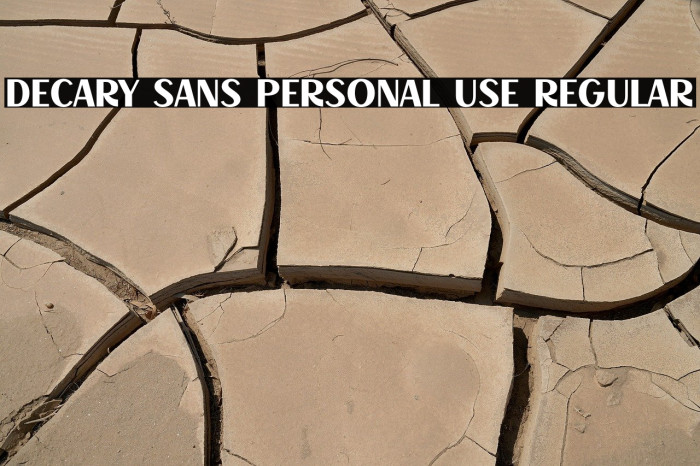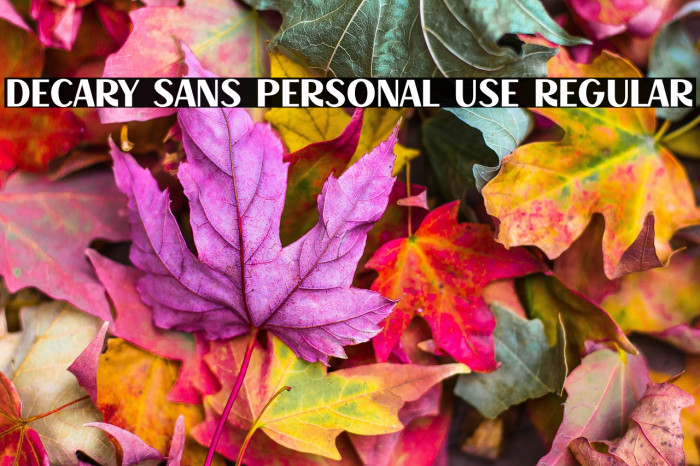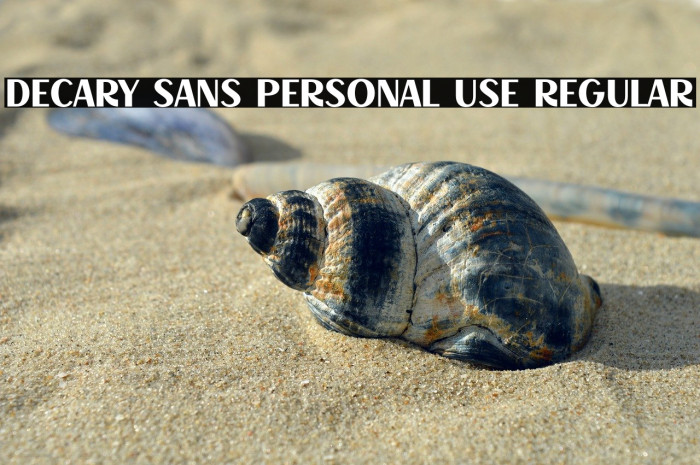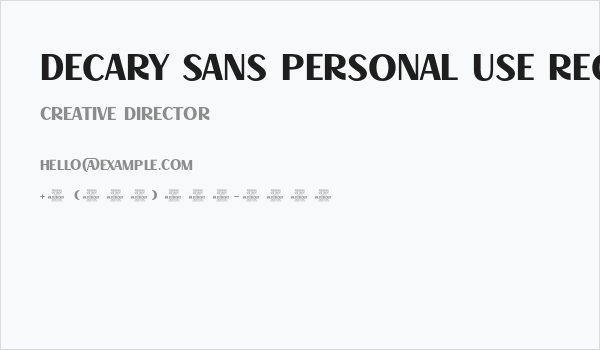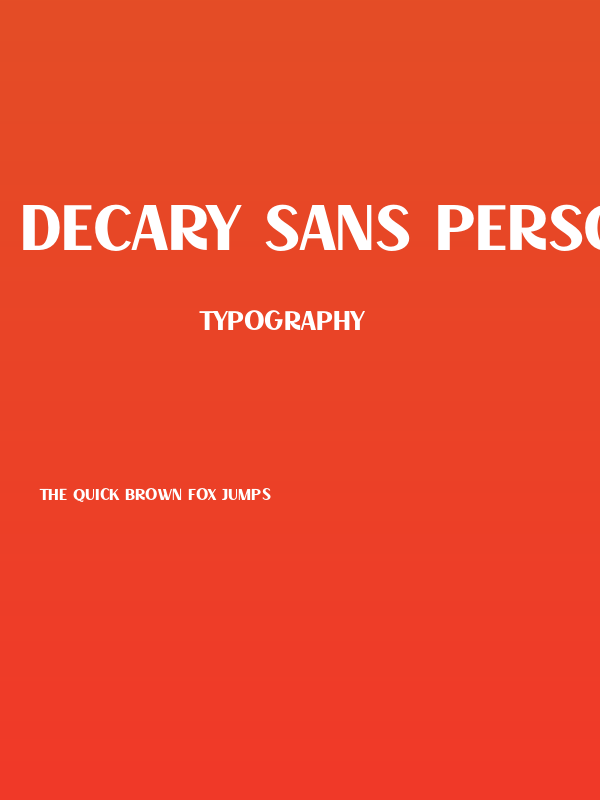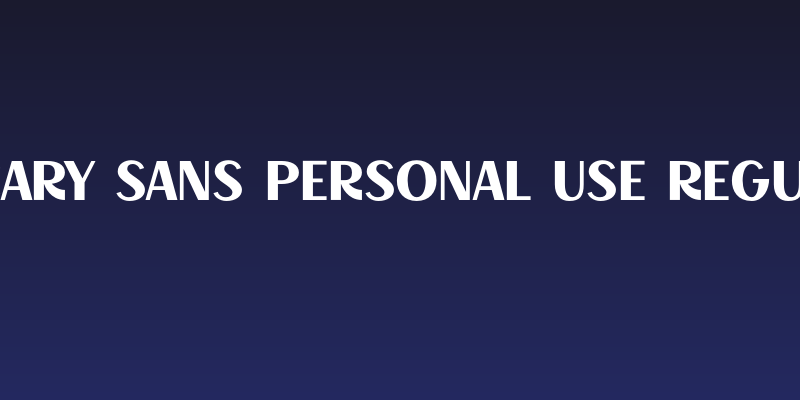
Decary Sans PERSONAL USE Regular Font
Decary Sans PERSONAL USE Regular Description
This font features a bold and assertive style, characterized by its strong, clean lines and modern aesthetic. The uppercase letters are particularly striking, with a uniform width and slightly condensed form that gives them a powerful presence. The lowercase letters maintain the same boldness, ensuring consistency across different text sizes. The numerals and special characters are designed to match the overall style, providing a cohesive look. The font's high contrast between thick and thin strokes adds to its dynamic appearance, making it suitable for impactful designs.
| Proposed Projects | Ideal for branding, headlines, posters, and any design requiring a bold statement. |